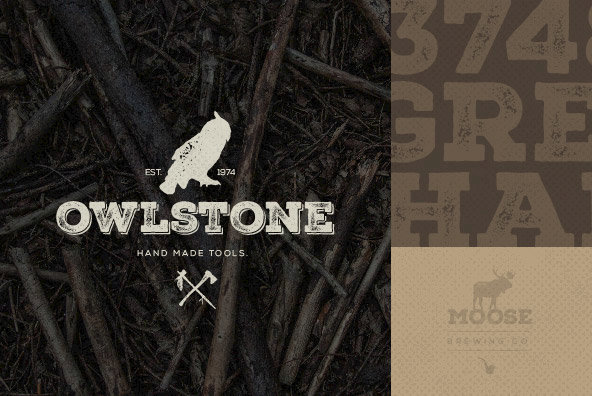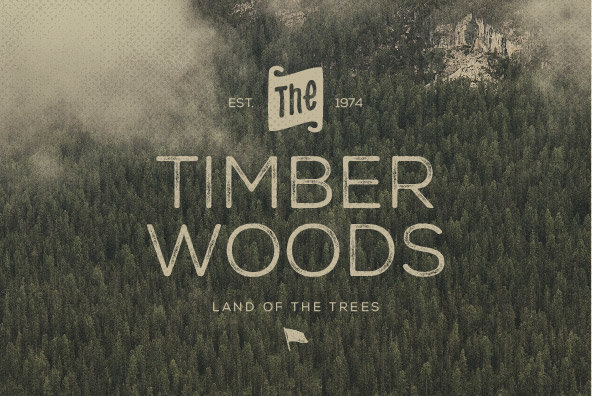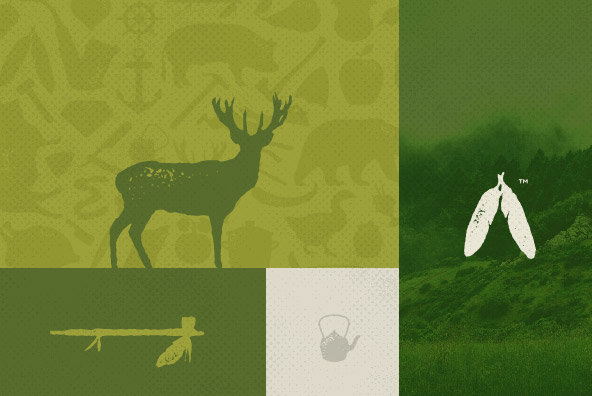
Nexa Rust Font
Along with all of this, you will also discover added groups of extras which could serve as a foundation or add that extra “cherry on the cake” to each unique design.